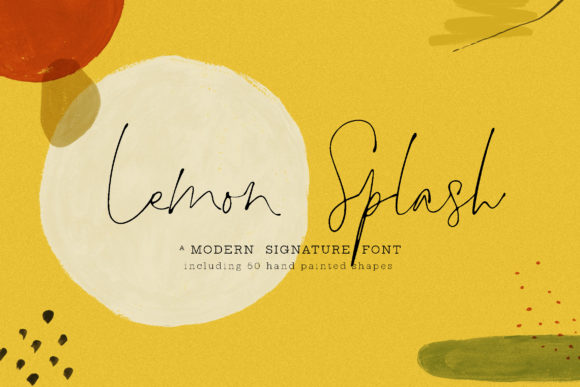
Unleash your creativity with the captivating Lemon Splash Font, a mesmerizing creation from the renowned Blue Robin Design Shop. This enchanting script font transports you to a realm of whimsy and elegance, leaving an unforgettable mark on every project.
Lemon Splash's distinctive ligature effect weaves a captivating tapestry of letters, adding an air of uniqueness to your designs. Each stroke flows effortlessly into the next, creating a harmonious dance of typography. Experience the joy of designing with a font that breathes life into your words, adding a touch of magic to every page.
Dive into the depths of inspiration and elevate your projects with Lemon Splash's enchanting extras. From playful shapes to intricate flourishes, this font family is a treasure trove of creative possibilities. Let your imagination soar as you craft invitations that shimmer, logos that captivate, and branding that stands out from the crowd.
Whether you're a seasoned designer or just starting your typographic journey, Lemon Splash is your perfect companion. Its user-friendly charm makes it accessible to all, empowering you to create stunning designs with ease. Embrace the beauty of script and let Lemon Splash transform your projects into masterpieces.
Don't settle for ordinary fonts that blend into the background. Embrace the extraordinary with Lemon Splash, a unique and captivating script font that will ignite your creativity and leave a lasting impression. Download today and unlock a world of typographic wonders!